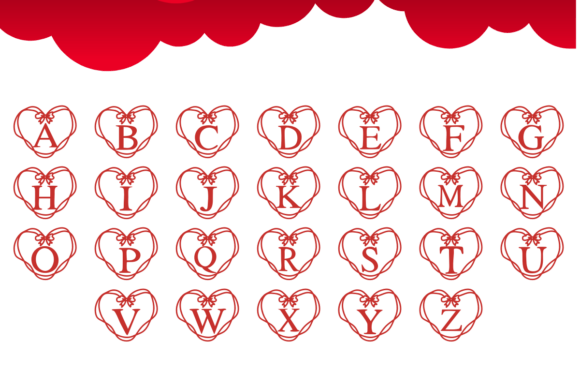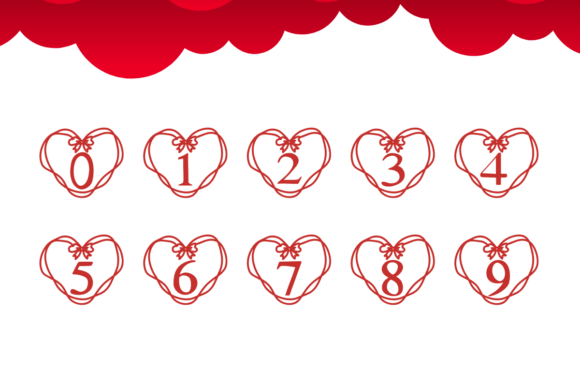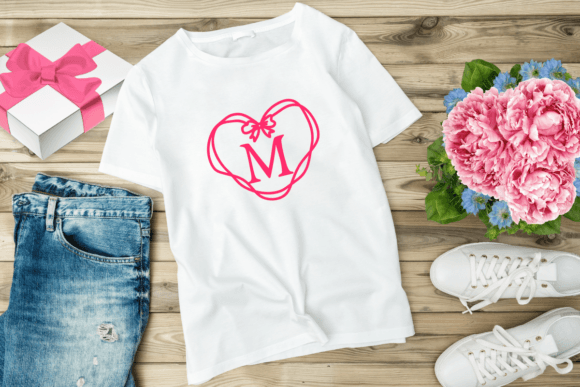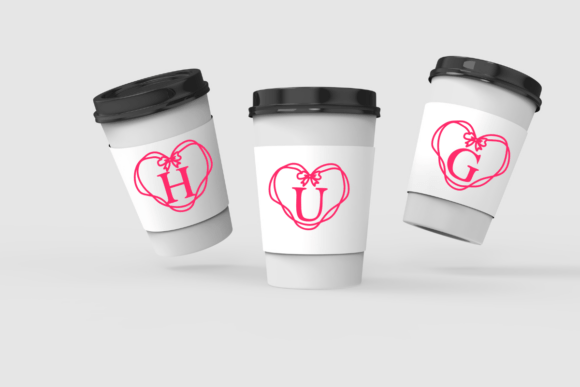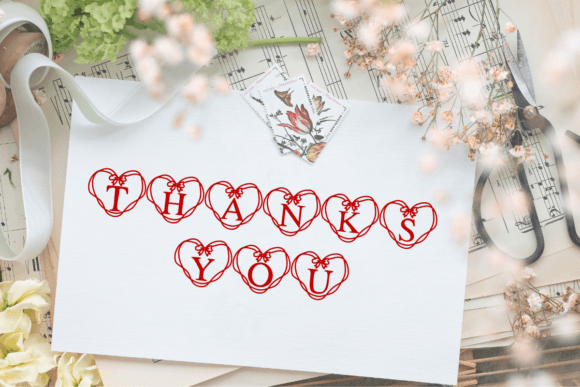
Introduction to Ribbon Heart Font
Do you ever find yourself in a creative moment where the perfect design element is just out of reach? For those times when a simple yet elegant touch is needed, the Ribbon Heart Font is a treasure trove of inspiration. This beautiful, decorative font is designed to add a whimsical flair to any project, whether you’re jotting down notes, writing a heartfelt letter, or crafting a birthday card.
What makes the Ribbon Heart Font truly valuable for designers is its versatility and high quality. With a transparent background, it can be easily layered over any image or background, allowing for endless creative possibilities. And, the best part? It’s a free download, making it an accessible design resource for anyone looking to elevate their next project. Whether you’re a seasoned designer or just starting out, the Ribbon Heart Font is an excellent addition to your toolkit.
Key Features of Ribbon Heart Font
- Unique and playful design perfect for creative projects and designs
- High-quality font with transparent background, ideal for designs that require a seamless look
- Perfect for use in digital and print designs, including invitations, cards, and other paper crafts
- Easy to customize and edit, allowing for endless creative possibilities
Honest Review: Ribbon Heart Font
As a designer, I’m always on the lookout for unique and high-quality design resources to elevate my creative projects. Recently, I came across the Ribbon Heart Font, and I was excited to give it a try.
One of the standout features of this font is its transparent background, which makes it incredibly versatile and easy to use. Whether you’re working on a digital project or printing out materials, this font is sure to shine.
- Unique and playful design aesthetic
- High-quality rendering, even at larger font sizes
- Easy to use and customize in most design software
- Limited character set, which may not be suitable for long blocks of text
- May not be as effective in sans-serif or minimalist designs
Overall, I’m really impressed with the Ribbon Heart Font. It’s a great addition to any designer’s toolkit, and I’ve already used it in a few of my recent projects. If you’re looking for a unique and high-quality font to add some personality to your design, I’d definitely recommend checking out the Ribbon Heart Font – it’s available as a free download, making it an excellent value for designers on a budget.
Ribbon Heart Font
The Ribbon Heart Font is suitable for various creative projects, including:
- Valentine’s Day cards and decorations
- Children’s party invitations and decorations
- Gift tags and labels
Alternatives to Ribbon Heart Font
Can I use the Ribbon Heart Font on a transparent background?
Yes, the Ribbon Heart Font is designed to work well with transparent backgrounds. Since it has a transparent background, you can easily place it over any image or design element without worrying about any unwanted background noise. This feature makes it perfect for designers who need to create visually appealing and intricate designs.